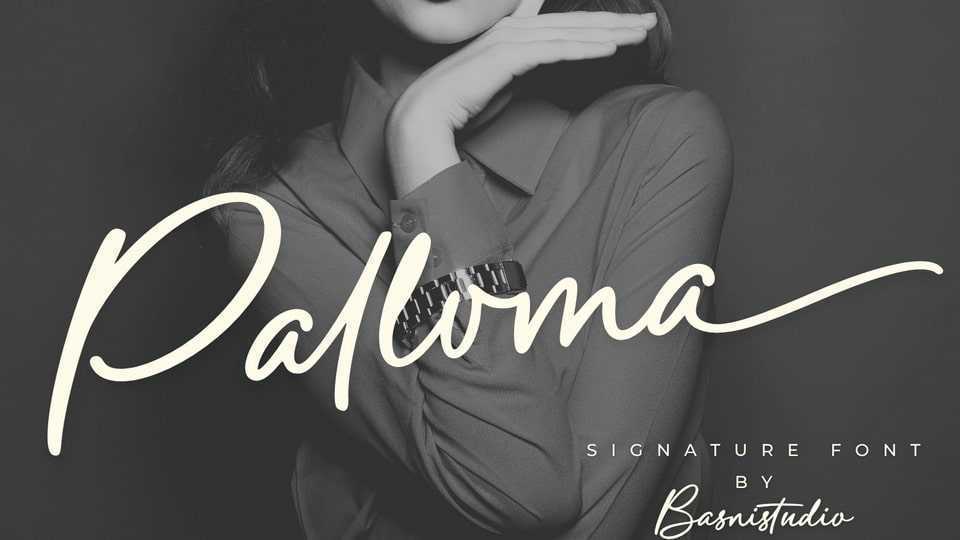
Download Palloma font, a signature typeface that adds a elegant, versatile touch to everything from branding and social media to invitations and packaging.